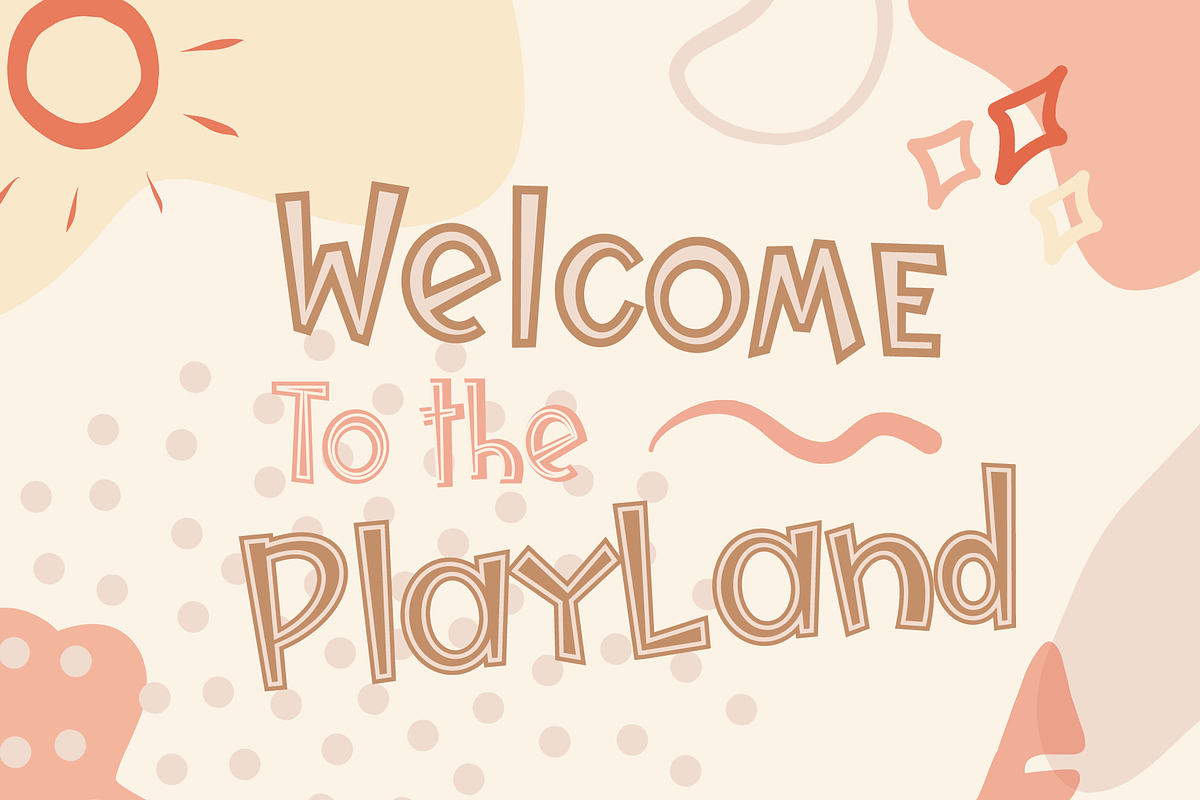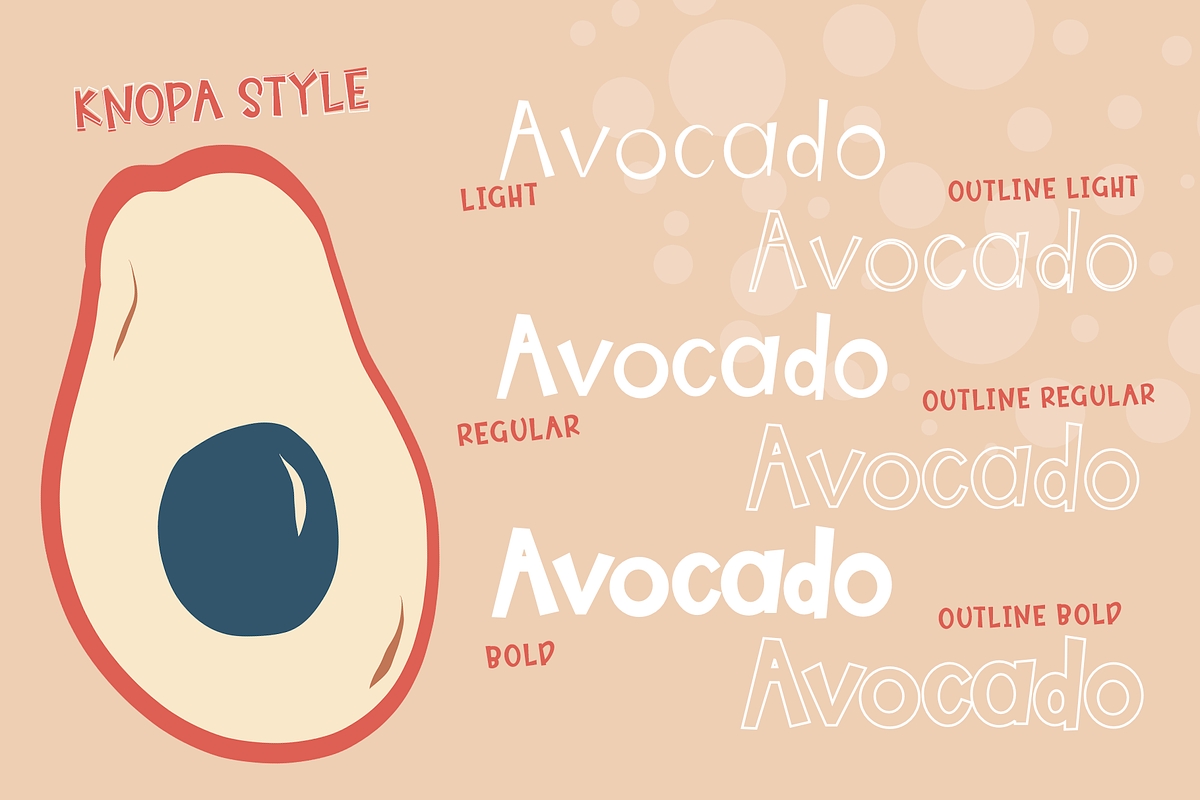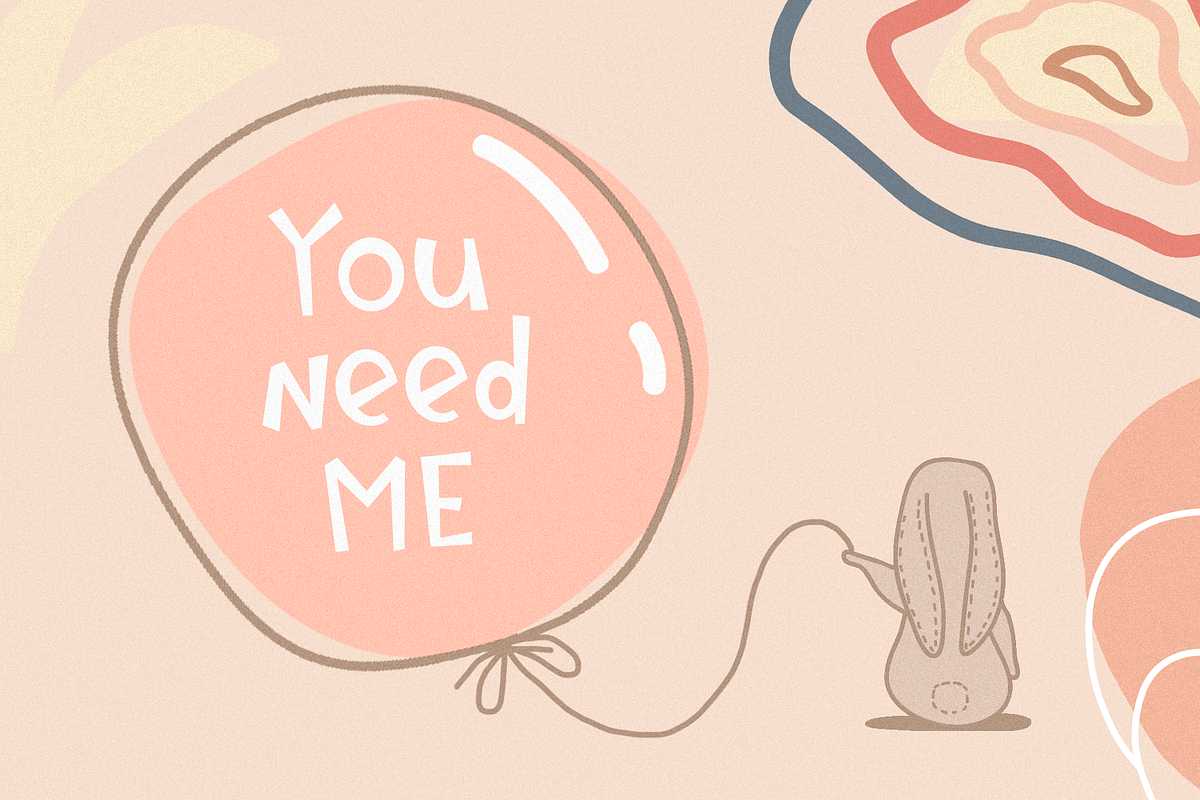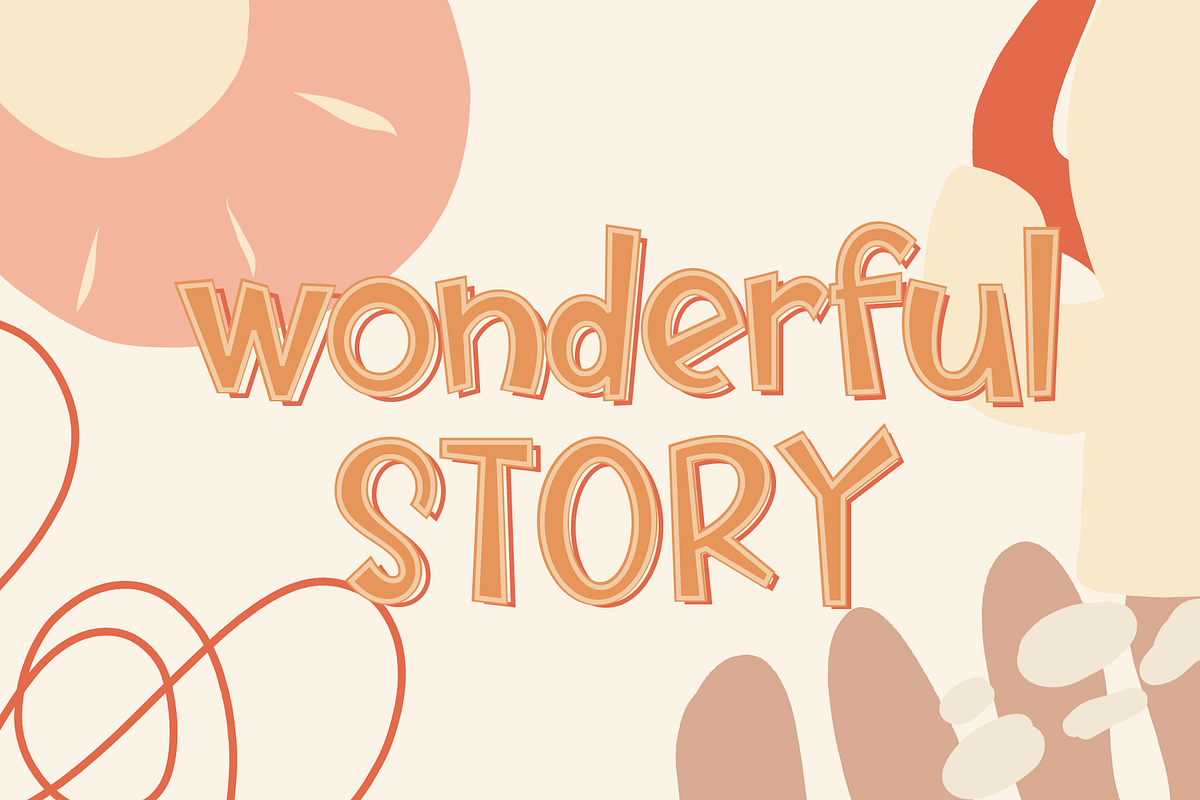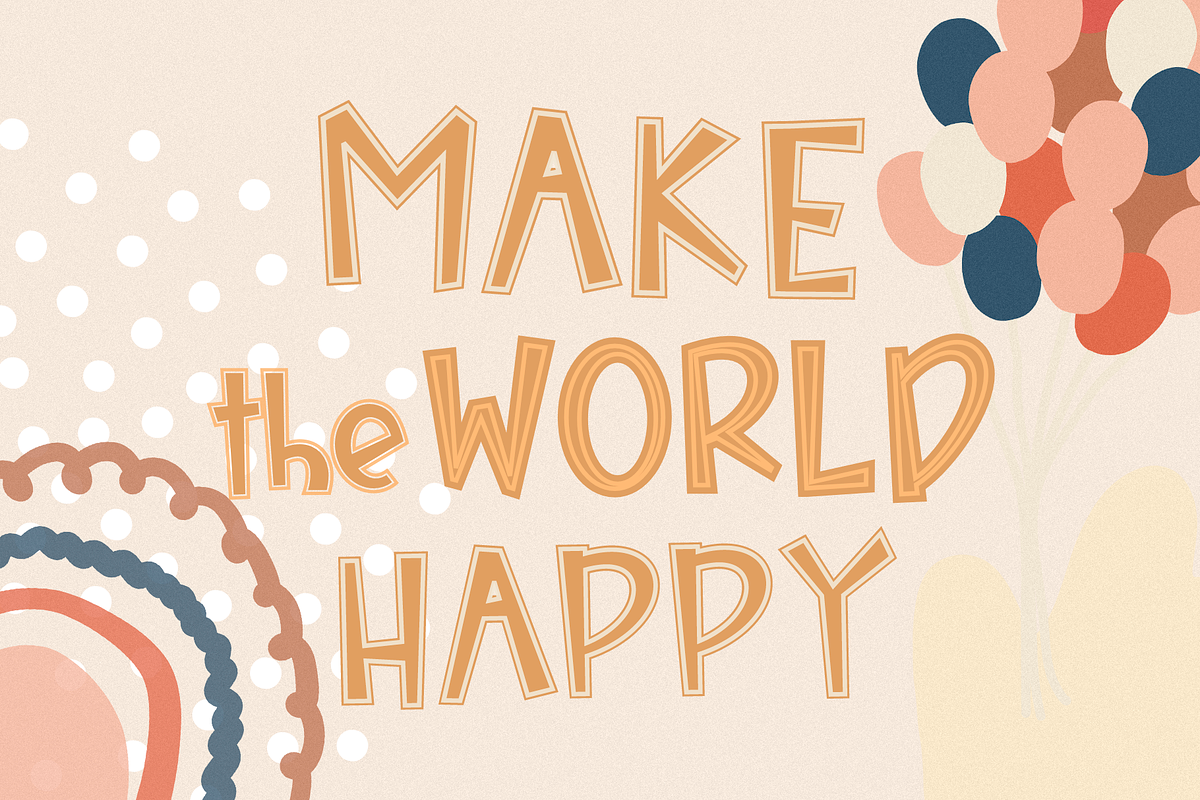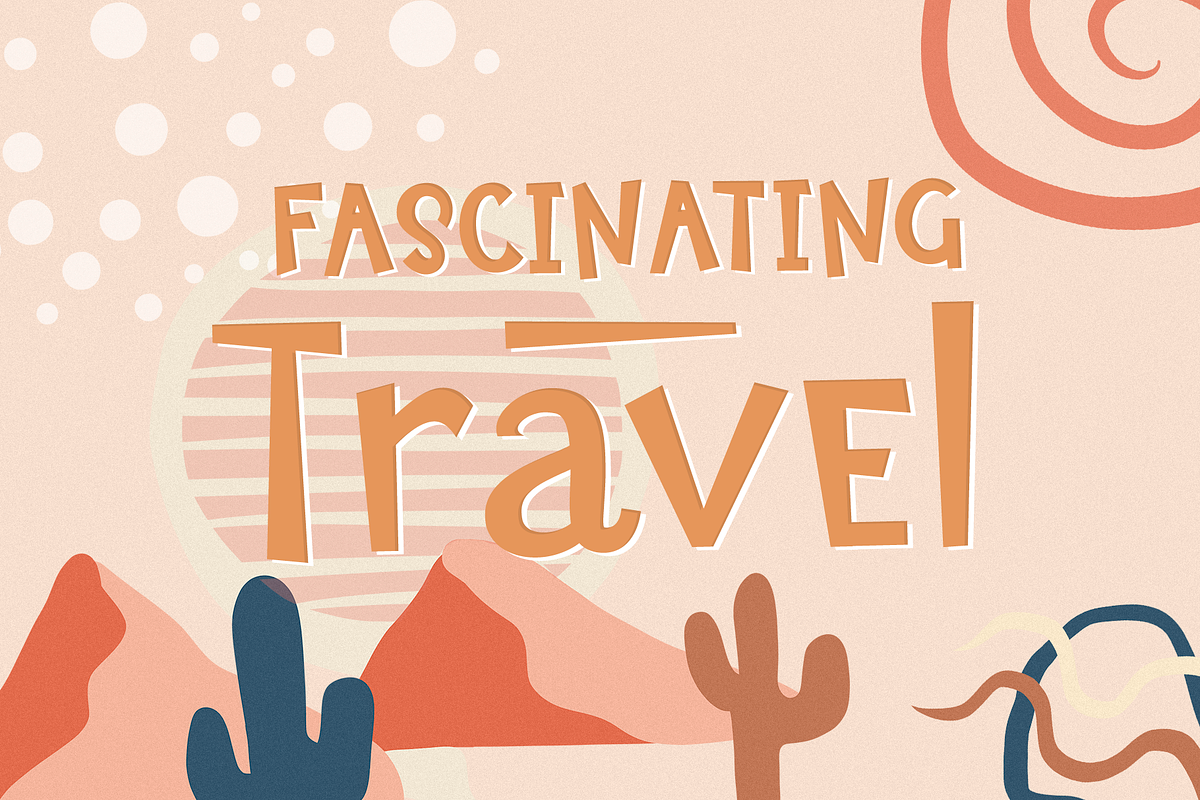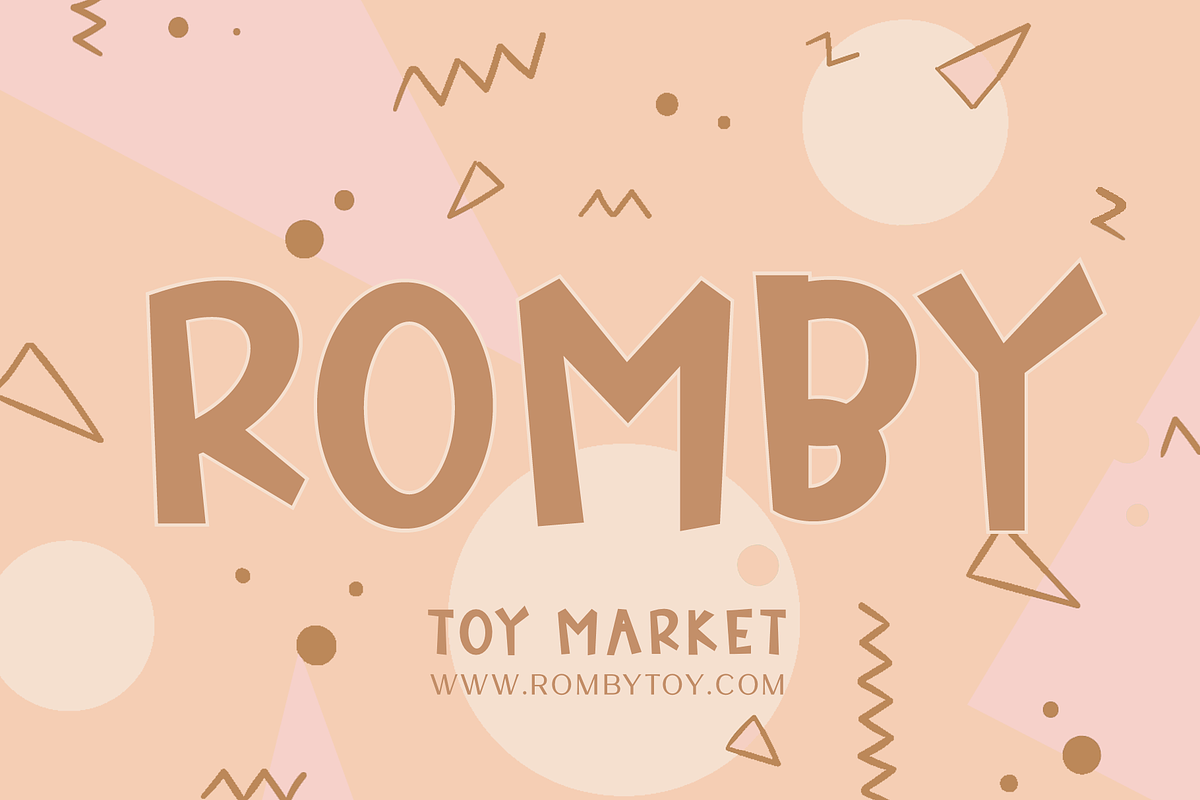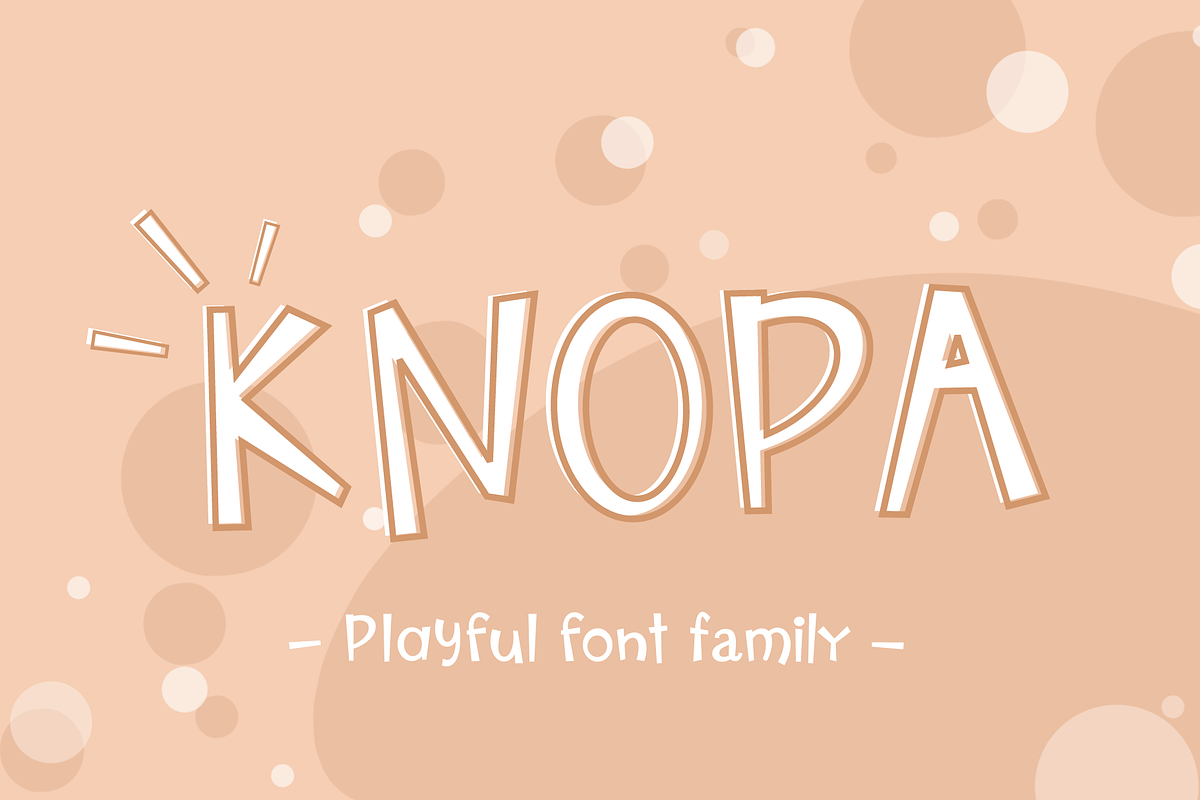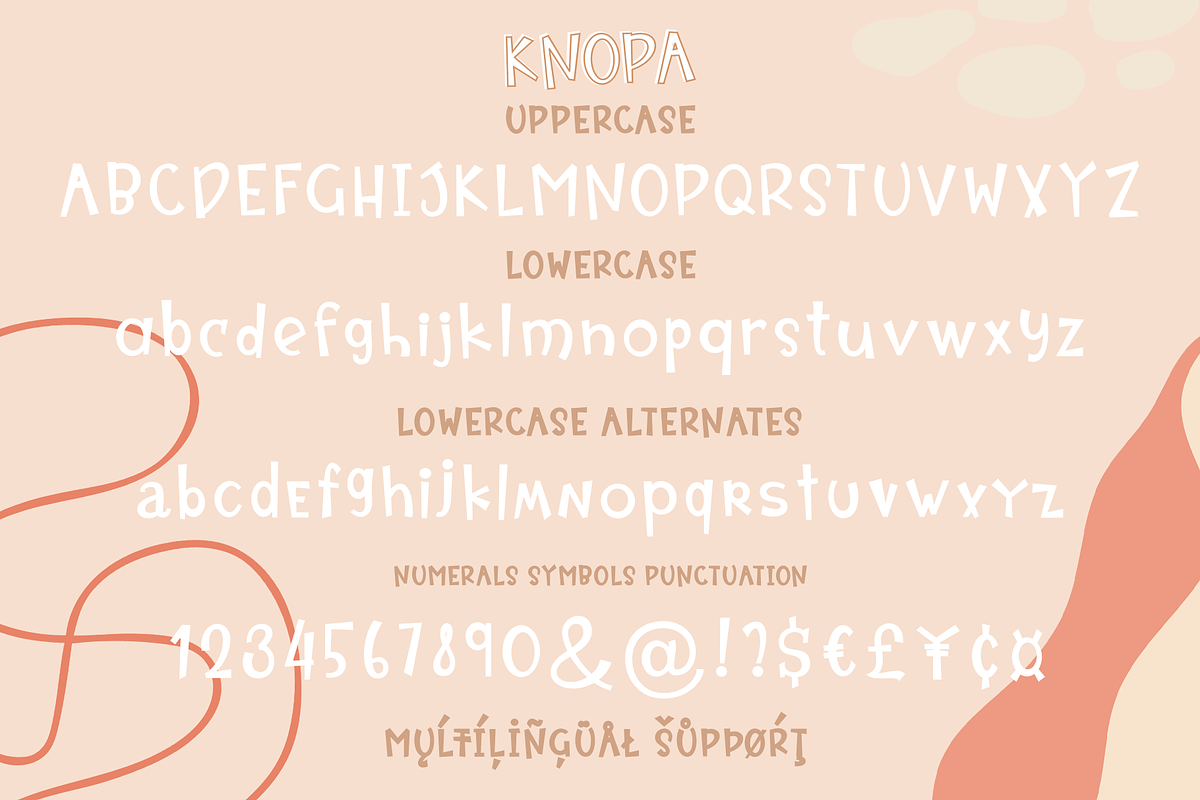
Knopa
KNOPA This is a fun and playful font family, which will perfectly fit into children's projects or funny modern designs and logos, with it you can make playful designs by changing styles and combining them with each other. This font has three weights ( light, regular, and bold ) and an outline style for each weight.
Following international symbols support: ÀÁÂÃÄÅĄÇĆÈÉÊËĘÌÍÎÏÐÑŃŁÒÓÔÕÖØÙÚÛÜŚŠŸÝŹŻŽßàáâãäåçèéêëìíîïðñòóôõöøùúûüýÿąćęłńśšźżž
6 font style
Full alphabet with Uppercase and Lowercase A-z
Numbers, fractions
Punctuation and symbols
Alternates for Lowercase